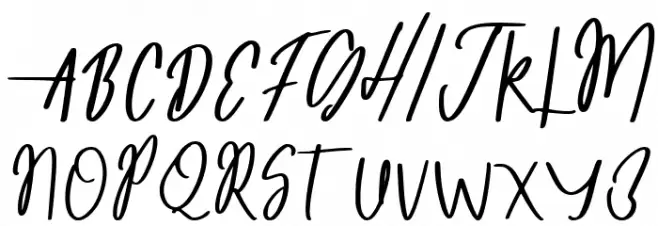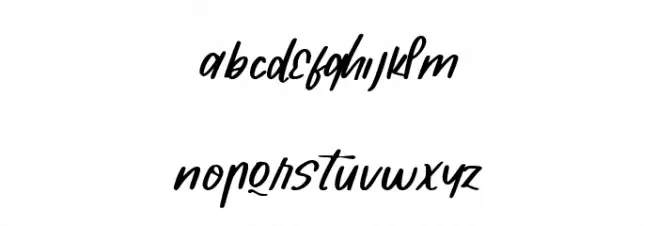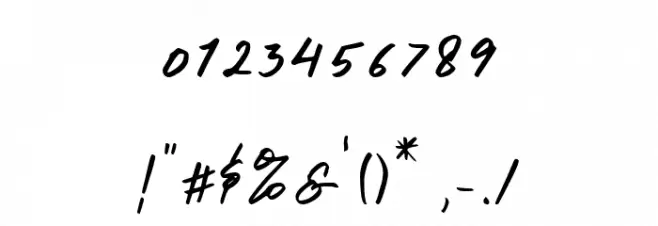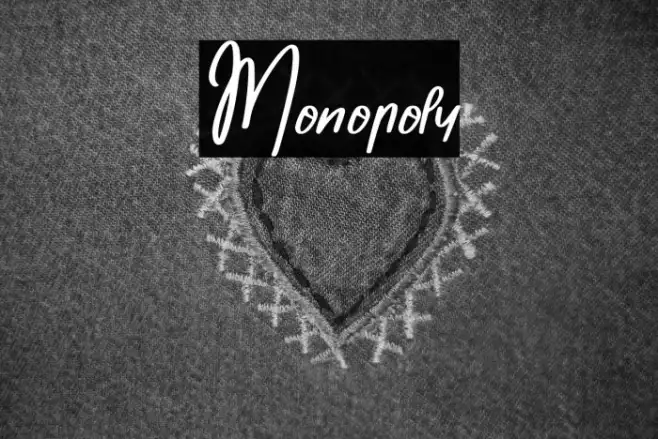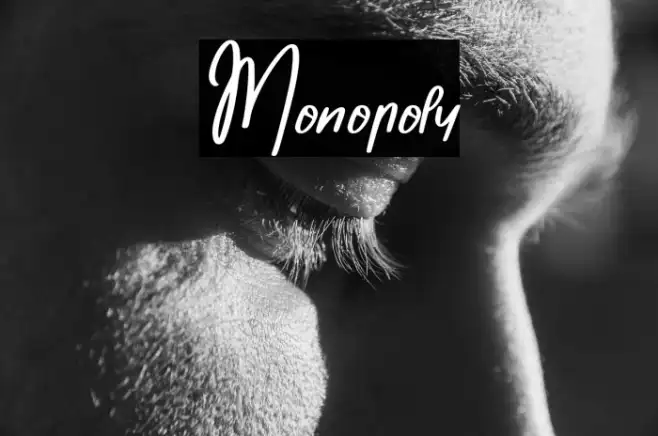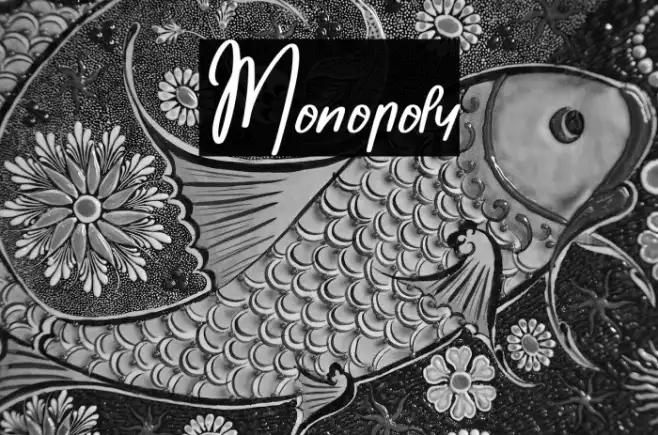
Monopoly
This font exhibits a lively and dynamic handwritten style, characterized by its fluid and cursive strokes. The uppercase letters are bold and slightly slanted, giving a sense of movement and energy. The lowercase letters maintain a consistent flow, with some characters featuring unique loops and swirls that add a playful touch. Numbers and special characters are designed to match the overall aesthetic, ensuring a cohesive look. The font's informal and artistic nature makes it suitable for creative projects that require a personal and approachable feel.
A lively handwritten font with fluid, cursive strokes and playful loops.
- Proposed Projects: Ideal for greeting cards, invitations, personal branding, and artistic projects.
- Overall Style: Decorative
- Use Case: Logos, Headlines, Creative projects